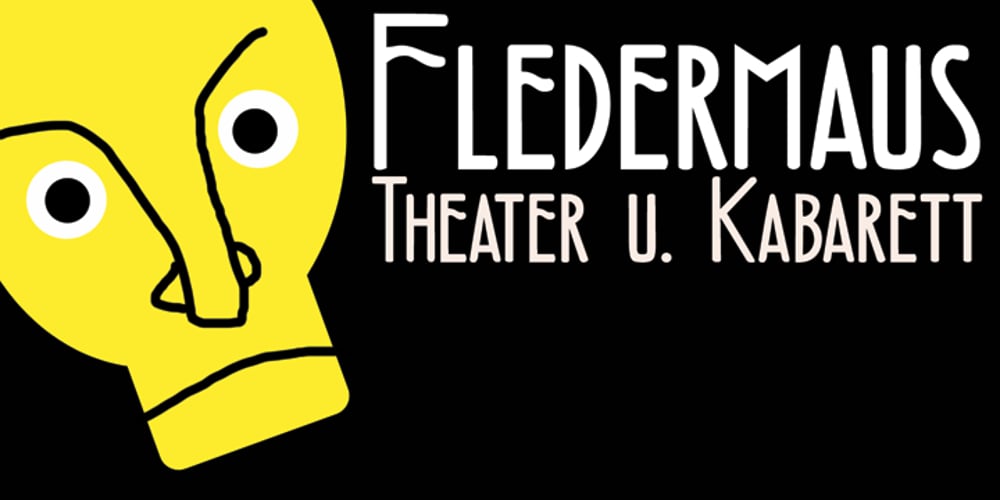
Fledermaus
Fledermaus font
Fledermaus Font Family was designed by David Kerkhoff and published by Hanoded. Fledermaus contains 2 styles and family package options. Fledermaus (meaning ‘Bat’ in German) was a cabaret theater from Vienna. The original Jugendstil decor was designed by Josef Hoffman and several posters, advertising performances, were designed by other members of the Vienna Workshop. Fledermaus font was based on a 1907 poster by Bertold Löffler. Since only a few glyphs were available, I designed the missing ones myself. The lower case consists of small caps and the font comes with extensive language support.